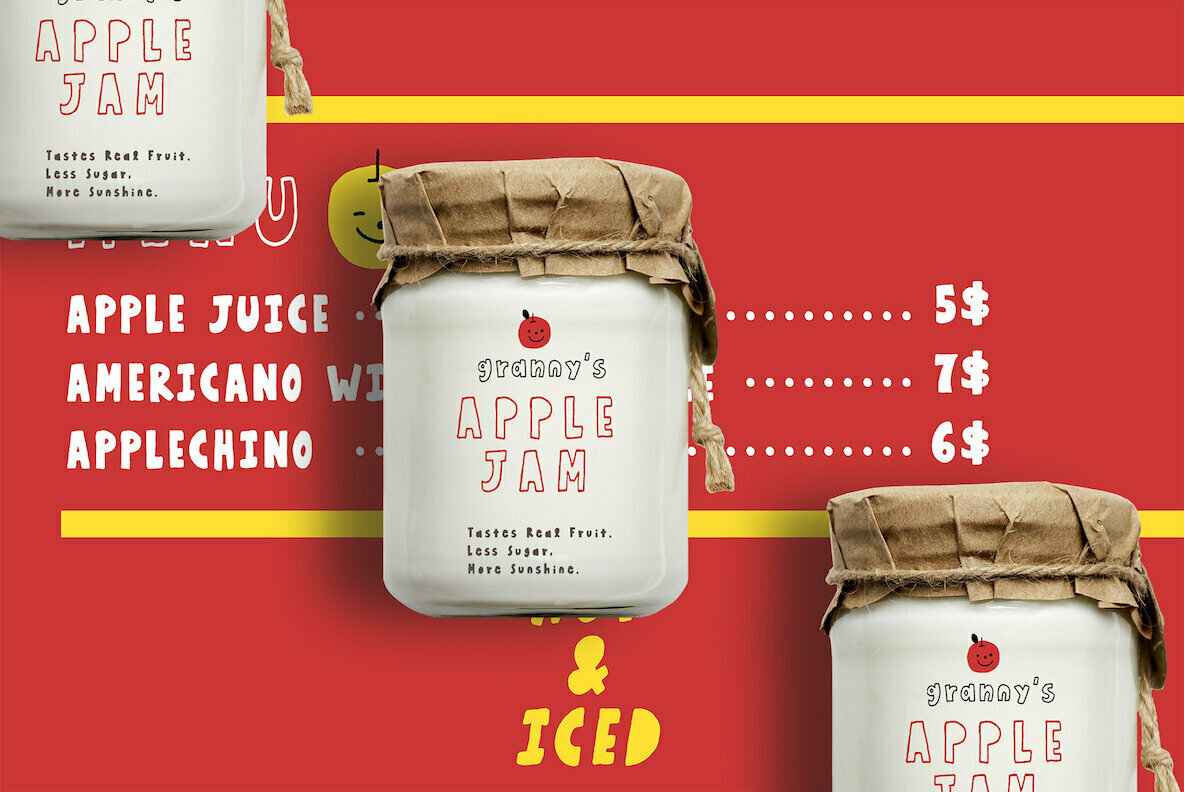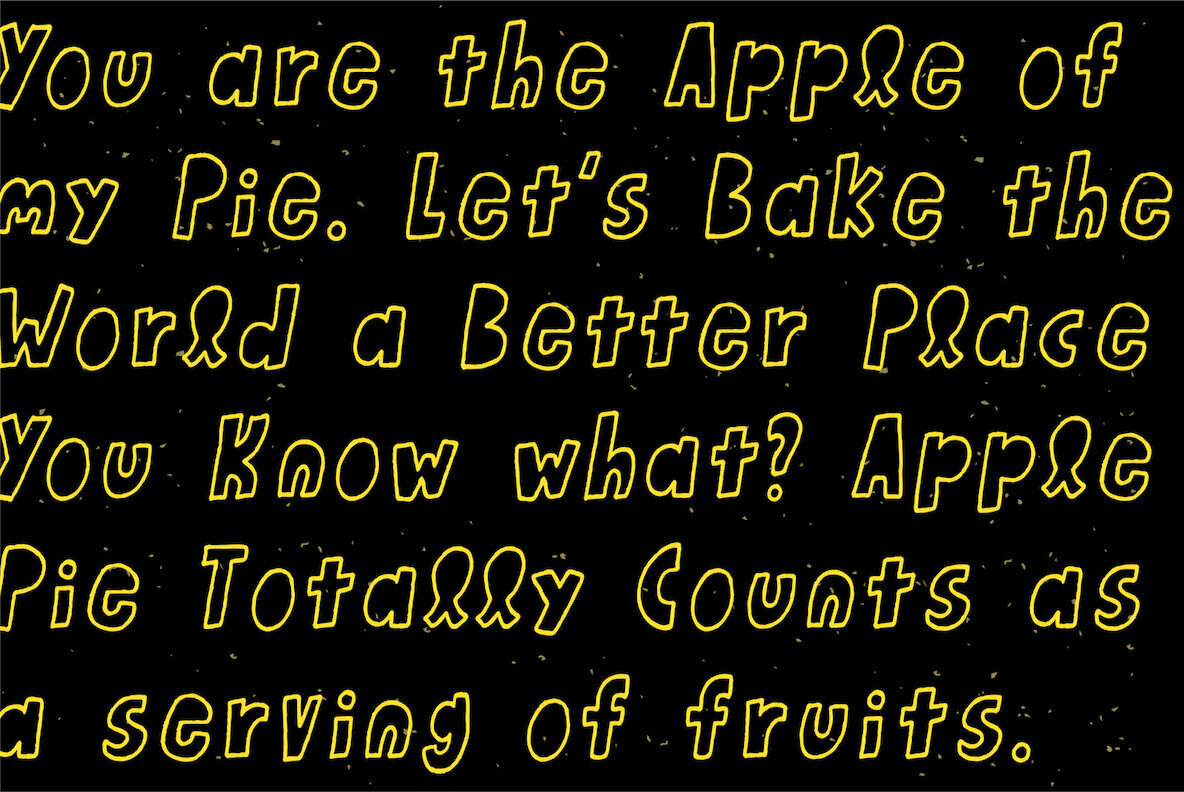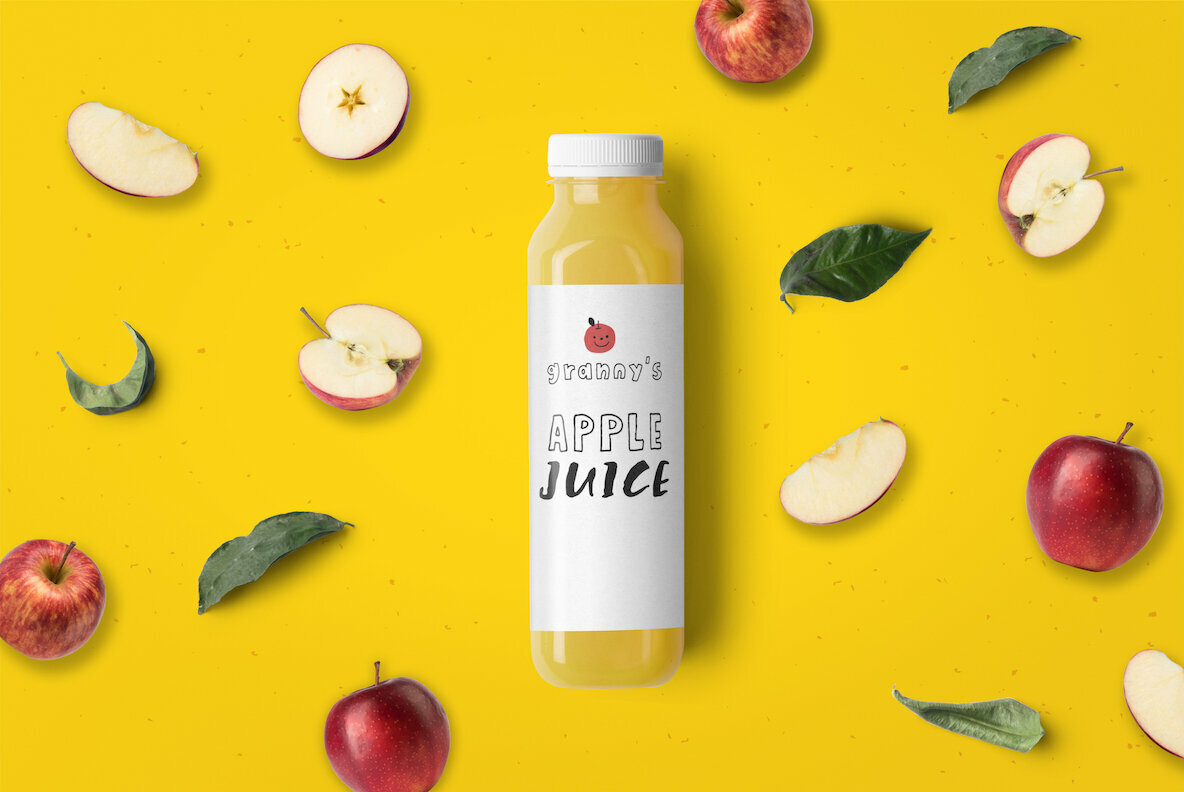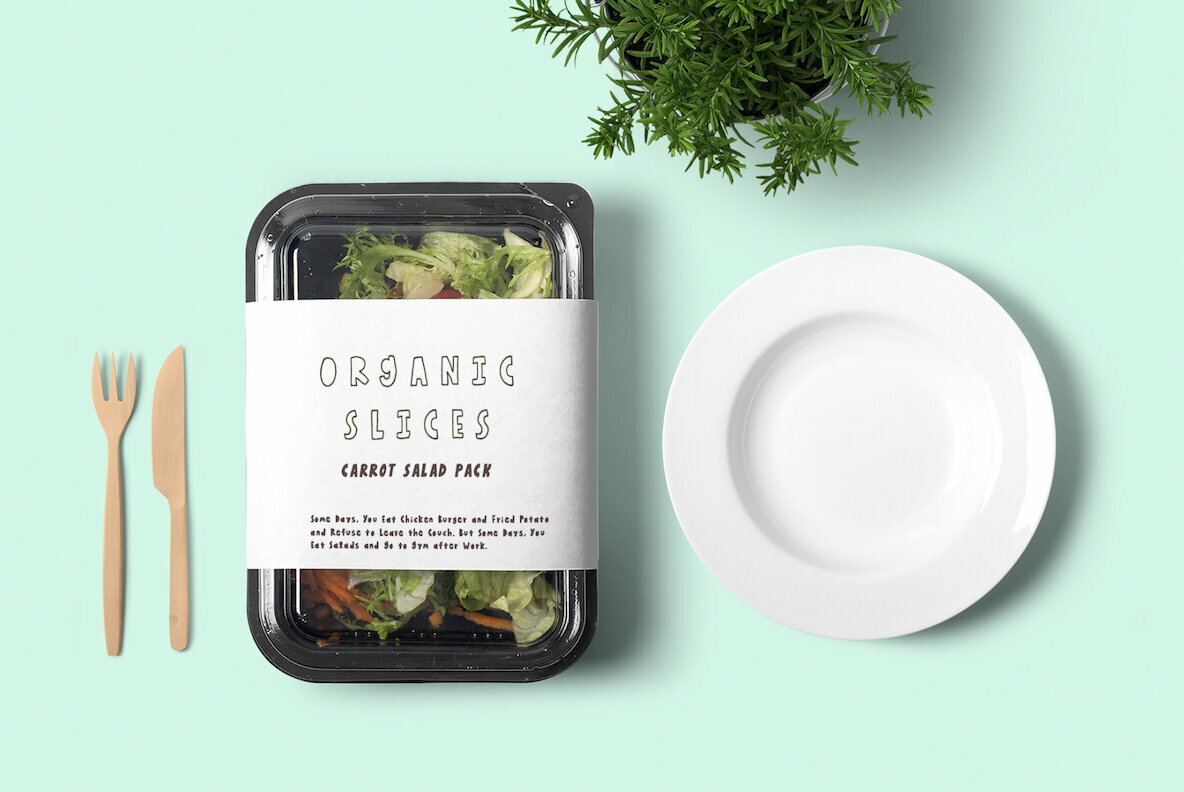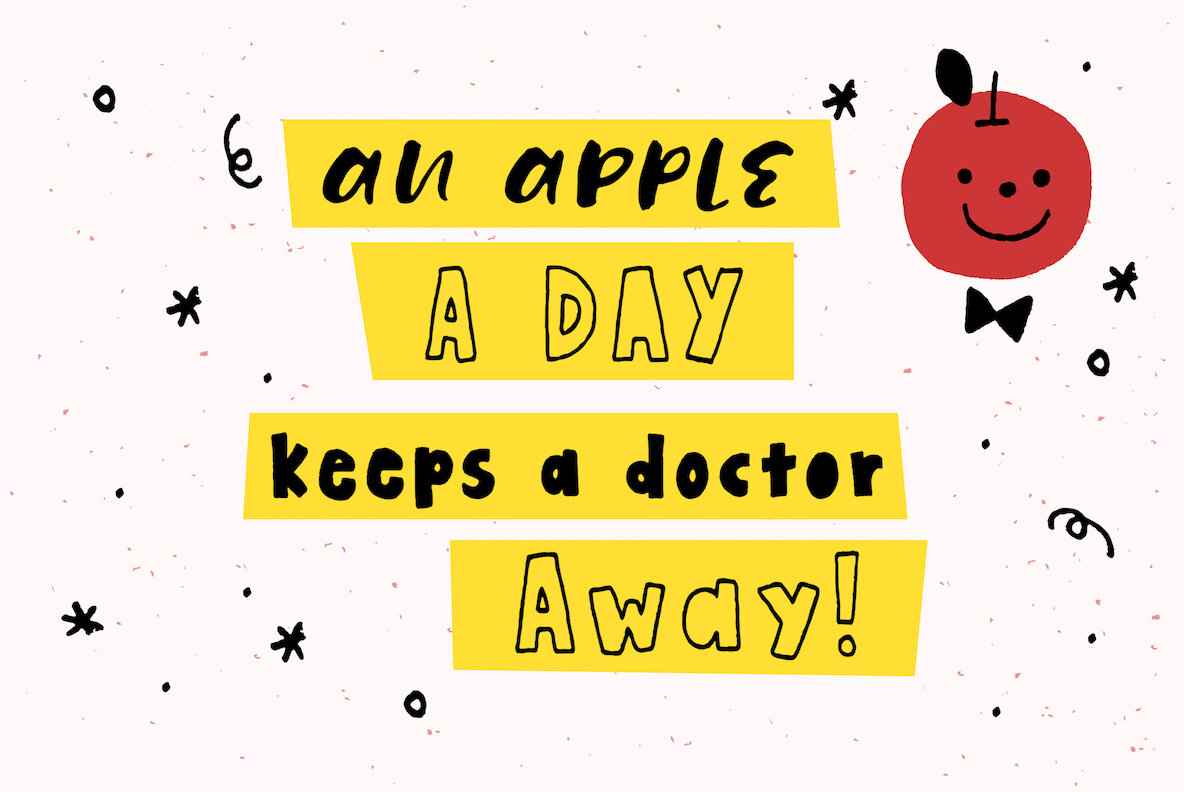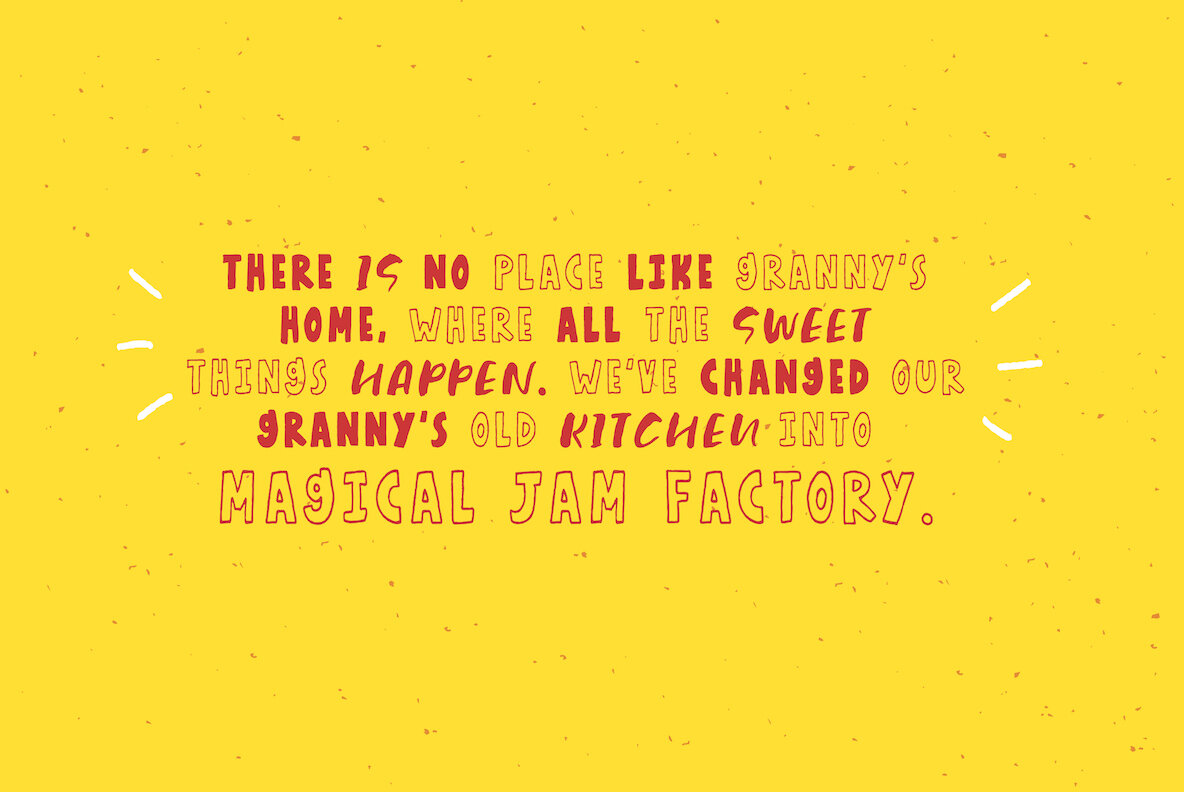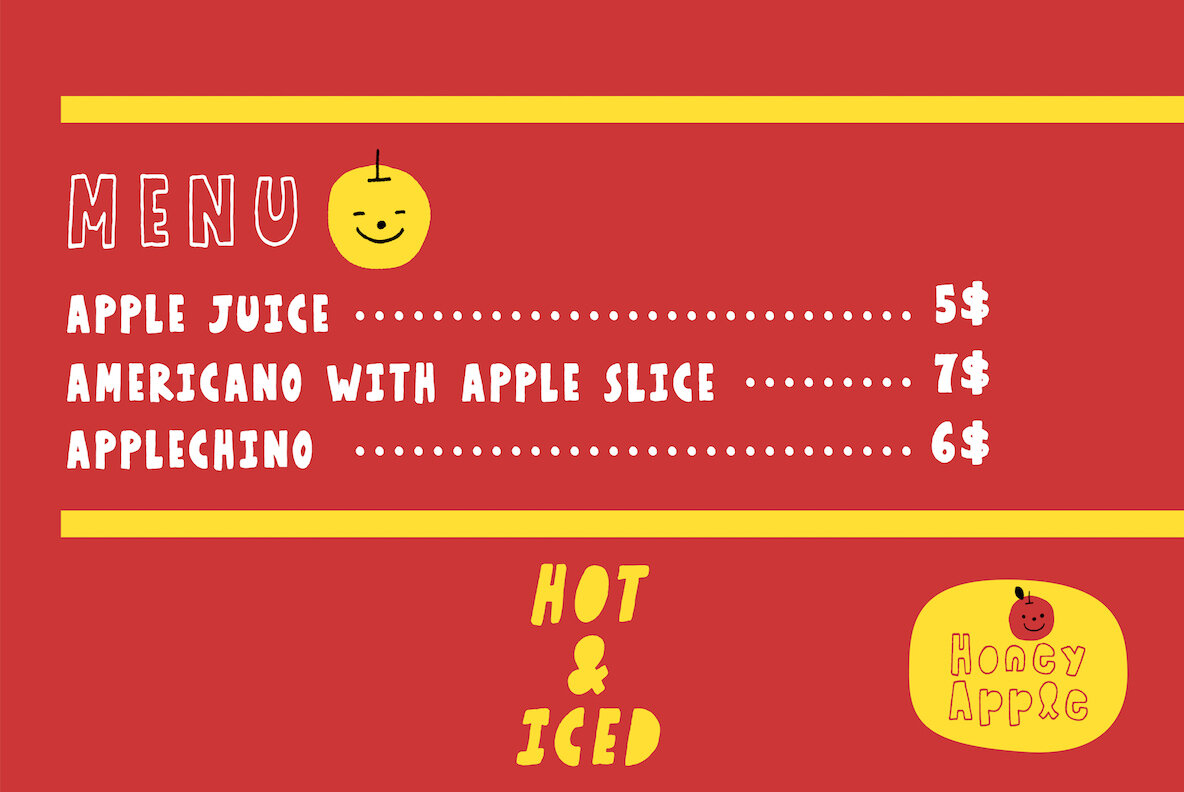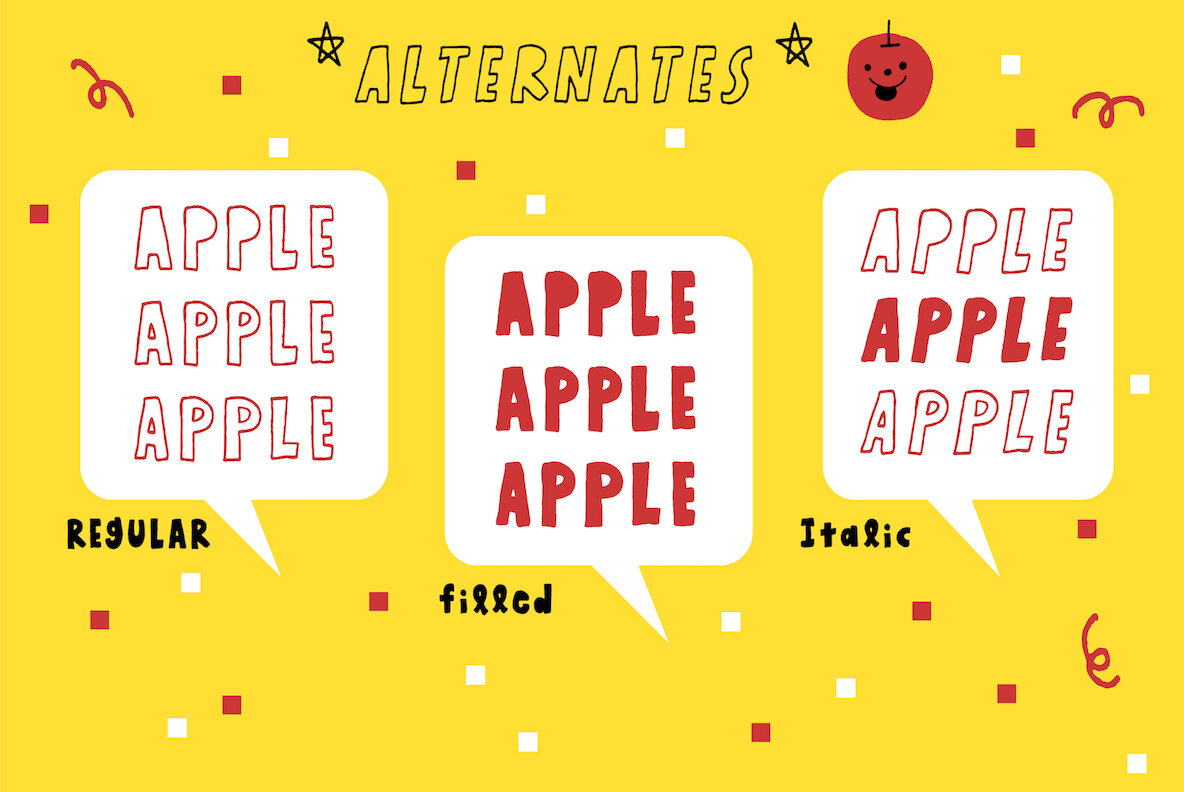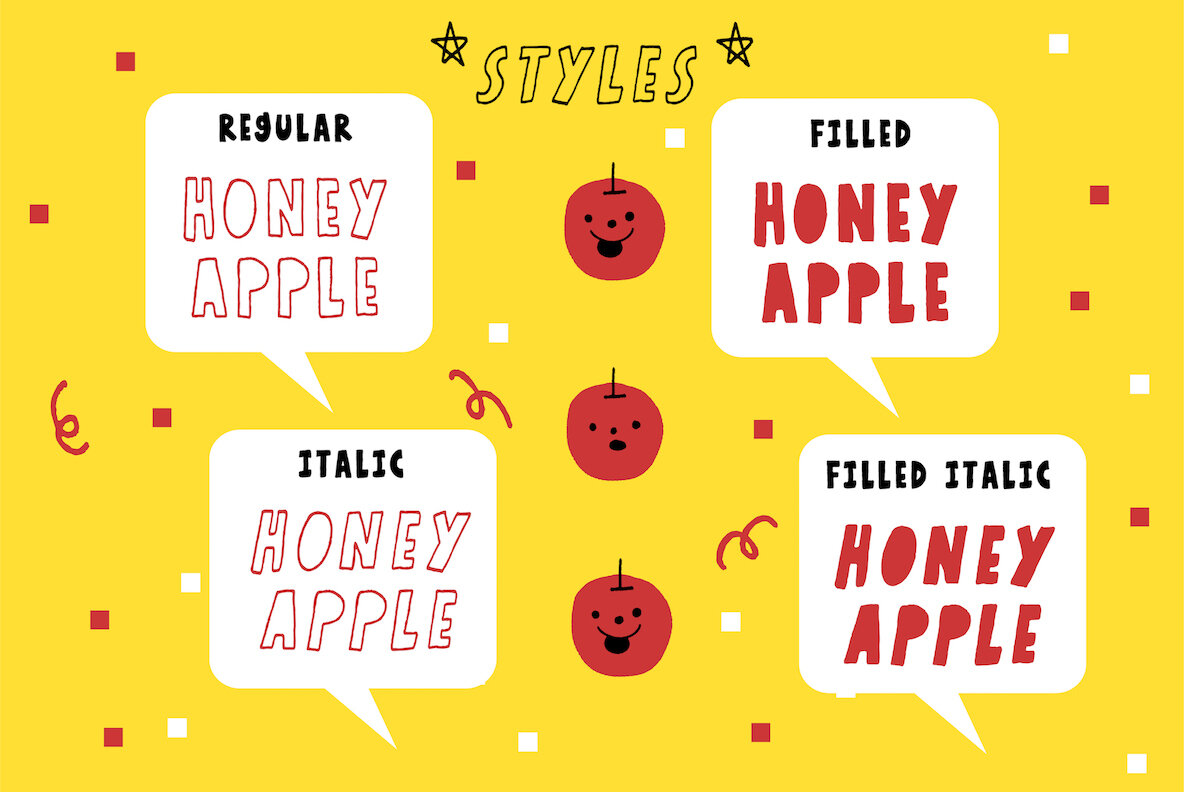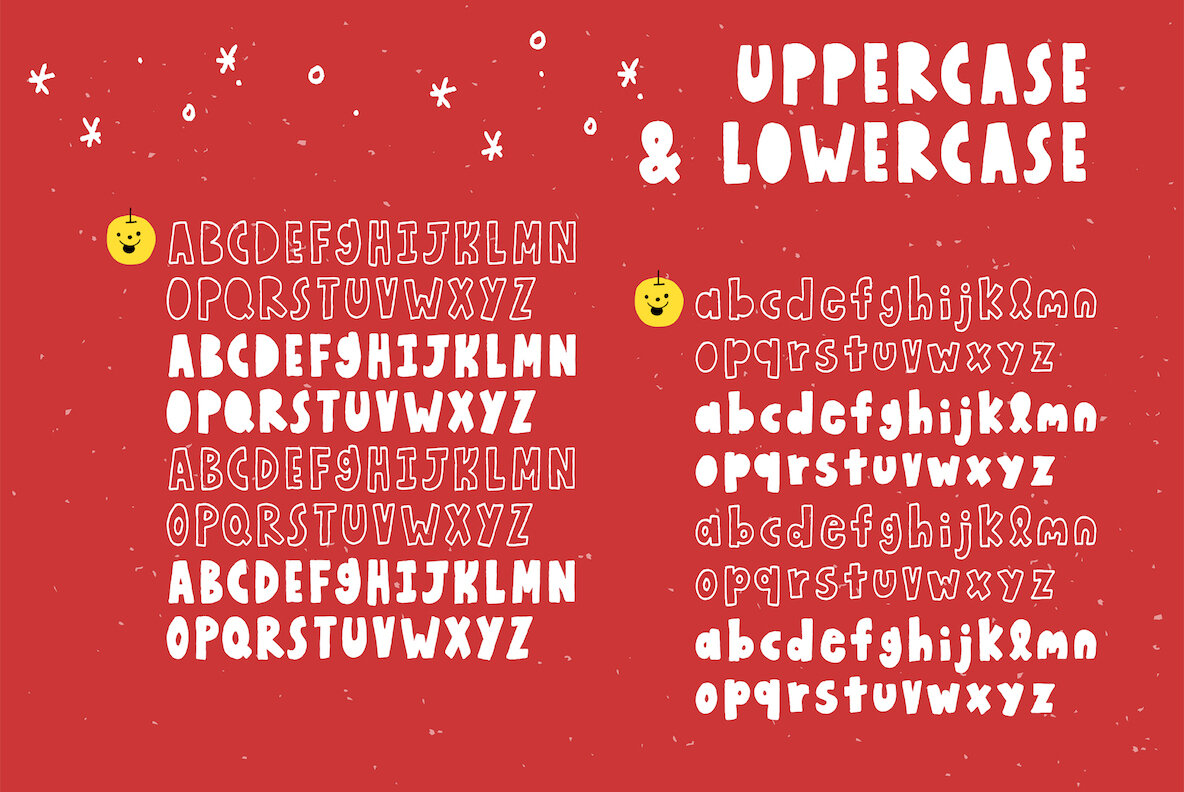
Honey Apple Font
Honey Apple is unique, sweet, and fully hand-lettered typeface. It’s hip and fun choice for a juicy typography design project.
Honey Apple is including regular / Italic / Filled / Filled Italic styles which you can play with. Combine all the styles to create typographic book covers, package, stationery, posters, social media project, t-shirt, mugs, logos, branding, and anything.